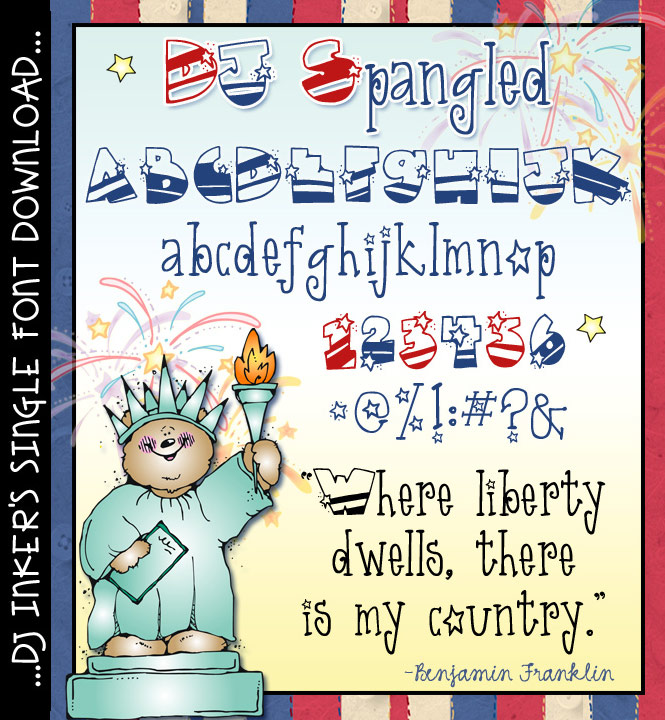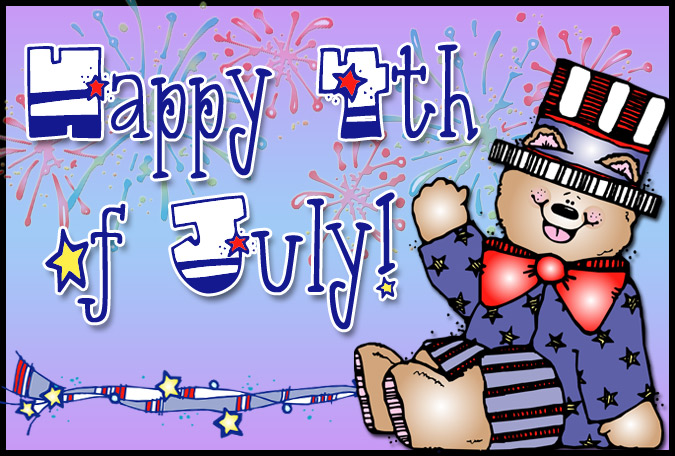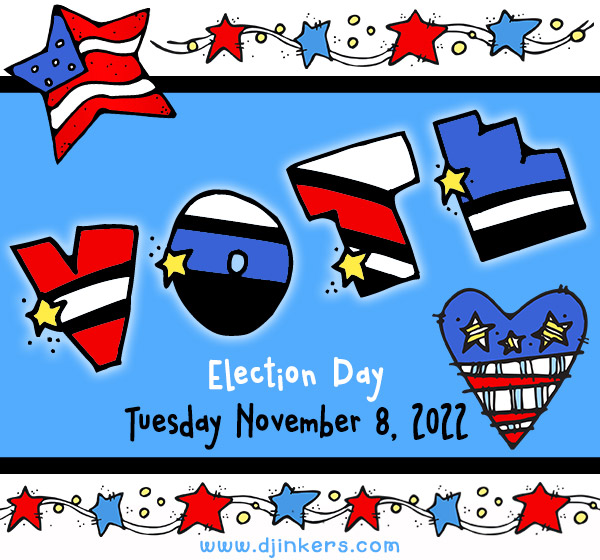
O say, can you see... the perfect stars 'n stripes lettering for any patriotic project? Presenting DJ Spangled! This nice, bold font will be wonderful for creating smiles for the 4th of July (or any American holiday) summer BBQ's & fireworks or even U.S. history class. Of course, it looks great in red and blue... and you can add a little clip art too!
Note: this font has been revised & updated from our 'DJ Stars 'n Stripes' font on Fontastic 2.